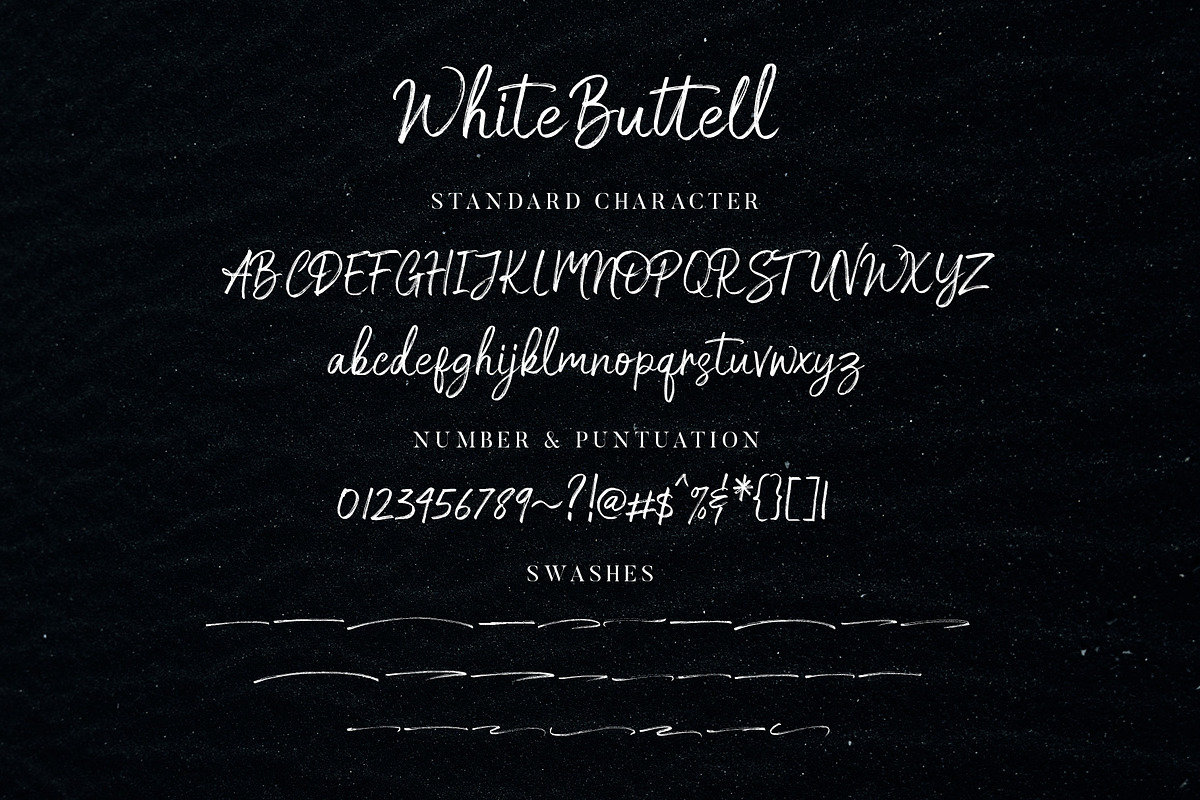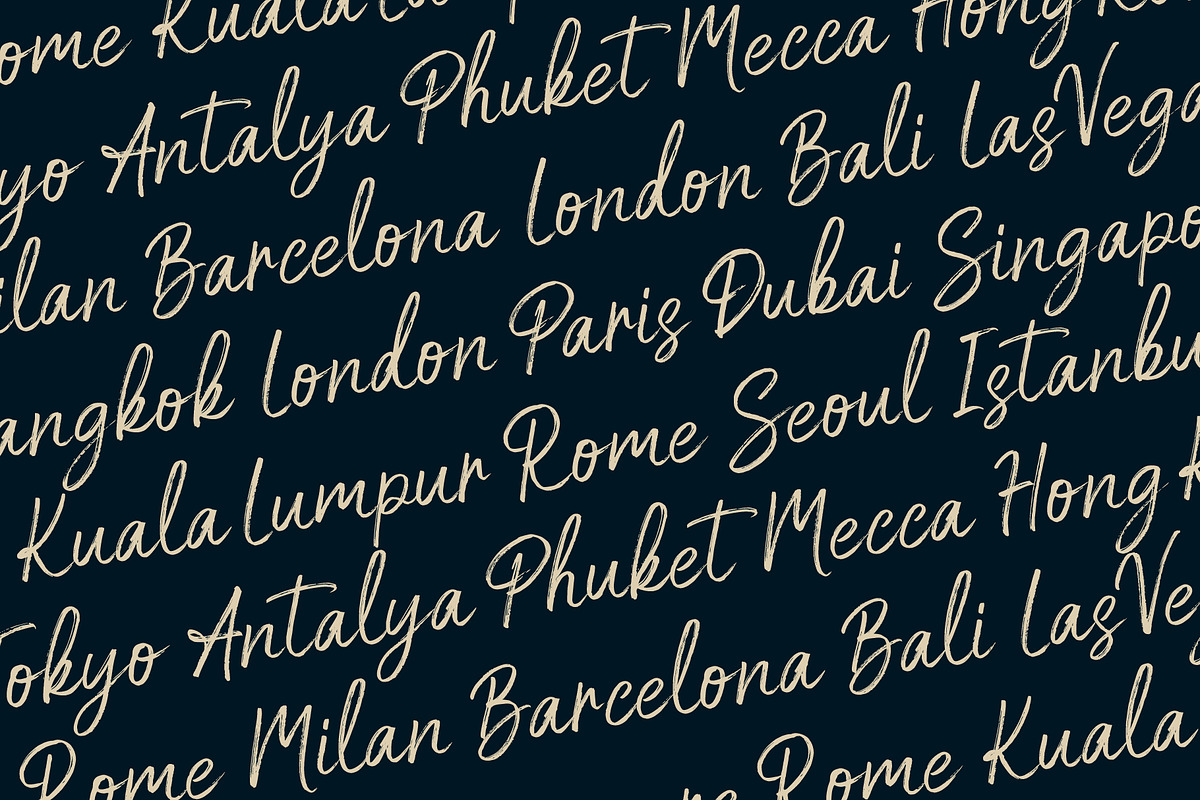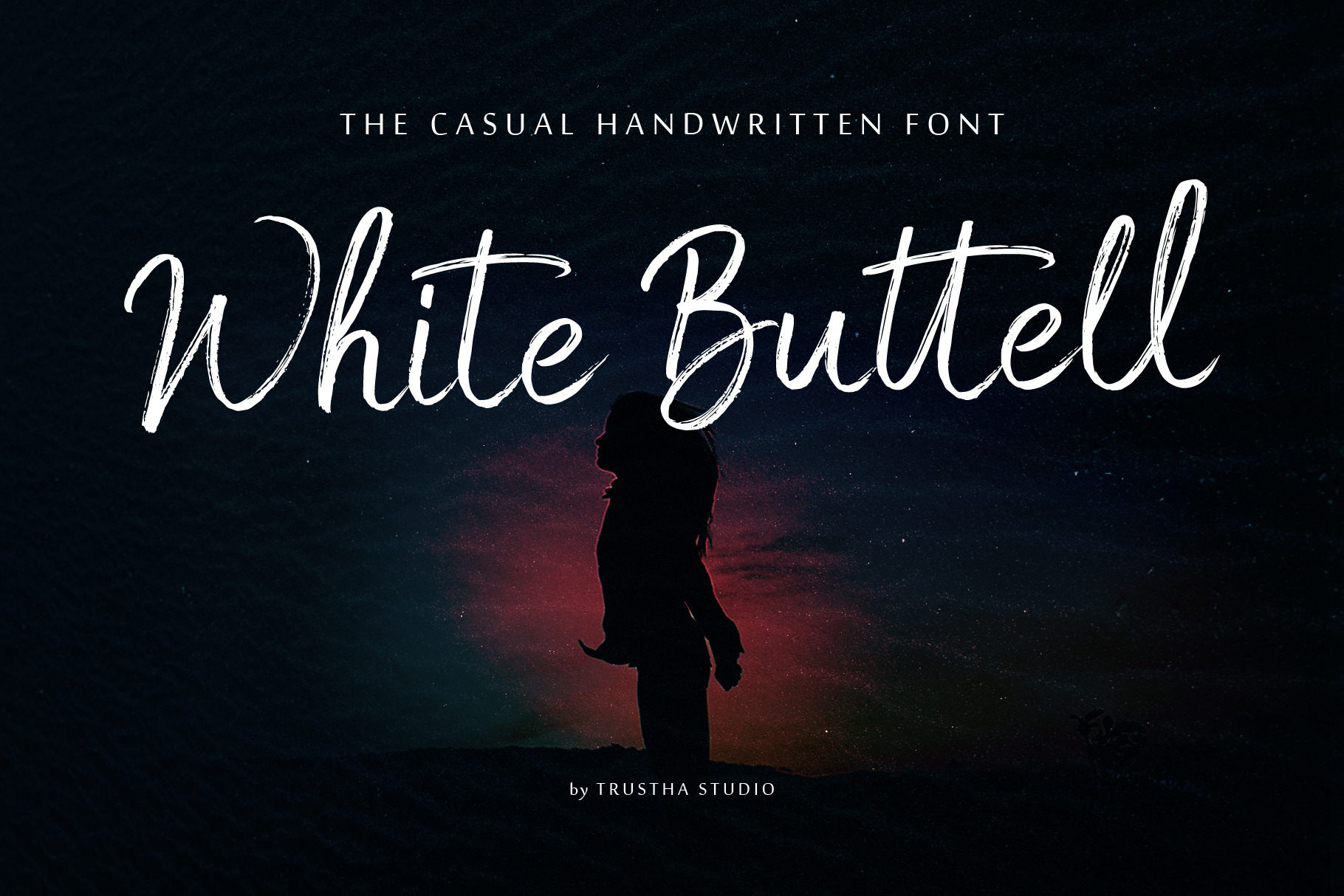
White Buttell Brush Font
White Buttell is a handwritten brush script font. It has a natural style of dry marker which makes it perfect for branding, advertising, poster design, logo, book covers, magazines, packaging, website headers, greeting cards, apparel designs, merchandise, fashion campaigns, newsletters, album covers, and quote designs and more.